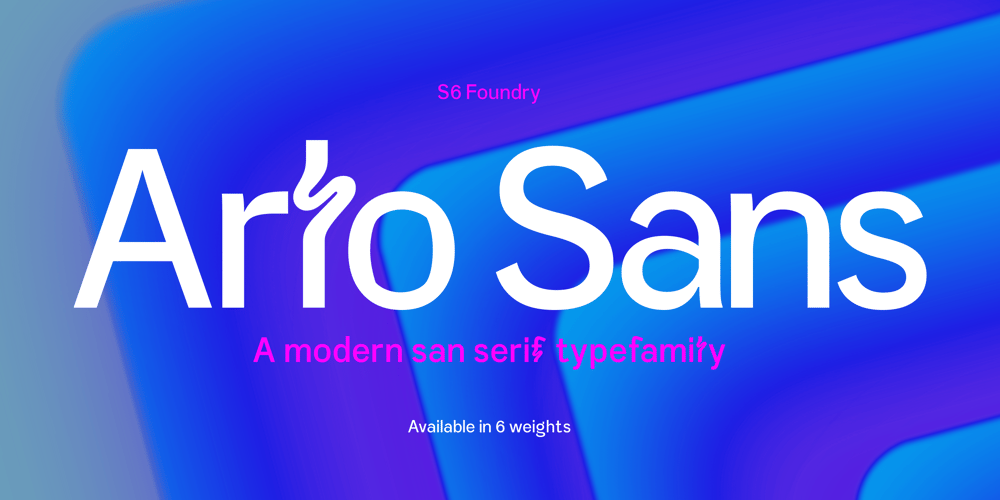
Arlo Sans
Arlo Sans font
Arlo Sans Font Family was designed by Paul Henry Robb and published by S6 Foundry. Arlo Sans contains 6 styles and family package options. Arlo is a geometric sans serif typefac containing purposeful subtle design touches, details, and deviations from conformity. The width of the counters and comfortable, breathable apertures means that Arlo Sans has excellent legibility and contrast throughout weights and sizes. Mastered for optimal readability, Arlo Sans is a versatile typefamily, designed with robust, reliable forms; it contains its contemporary personality. The family includes over 20 stylistic glyphic alternatives making it stunningly versatile with its modern details and classic styles.